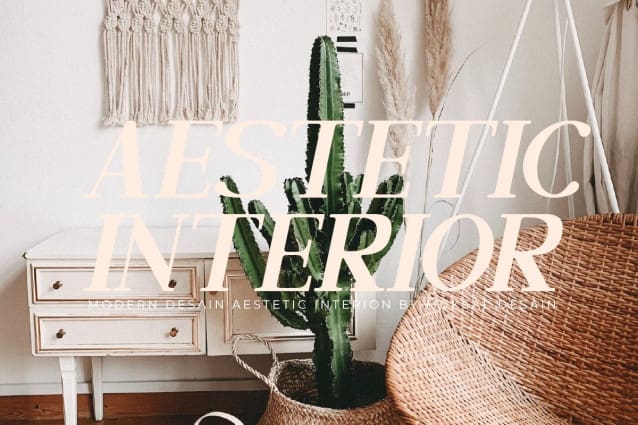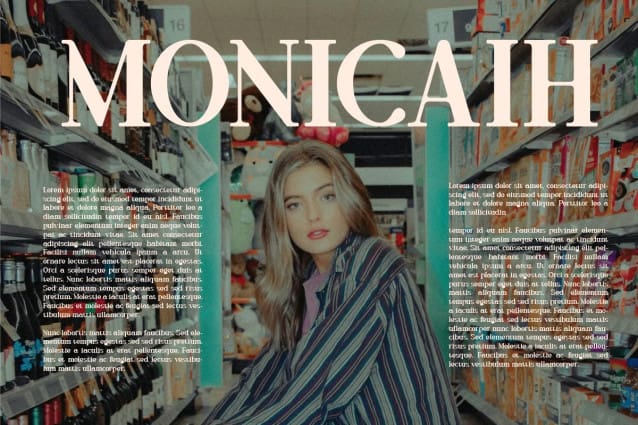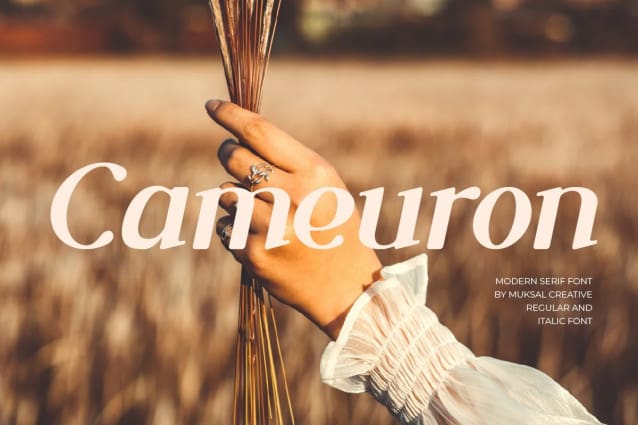
Cameuron Font
Cameuron Font is a type of modern serif font available in both regular and italic styles, offering a unique balance between classic and contemporary elements. With its refined and proportional serifs, this font exudes elegance while maintaining a sense of modernity, making it suitable for a wide range of design projects. Ideal for logo branding with themes encompassing femininity, modernity, retro, or vintage, it adds a touch of grace, exclusivity, and innovation. Its versatile nature makes it an ideal choice to enrich designs and radiate modern elegance across various contexts.